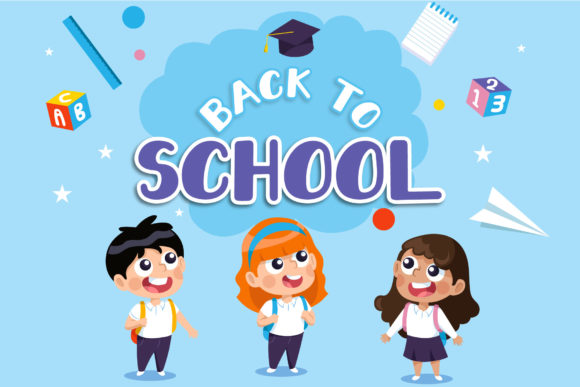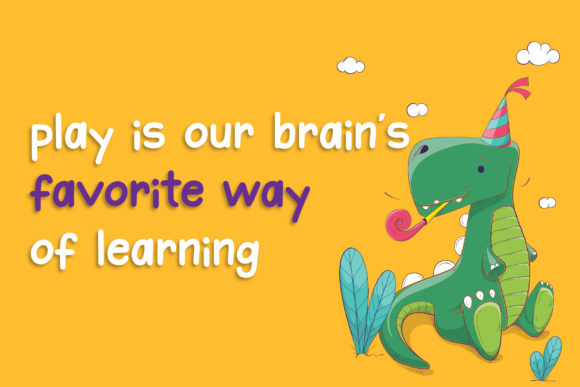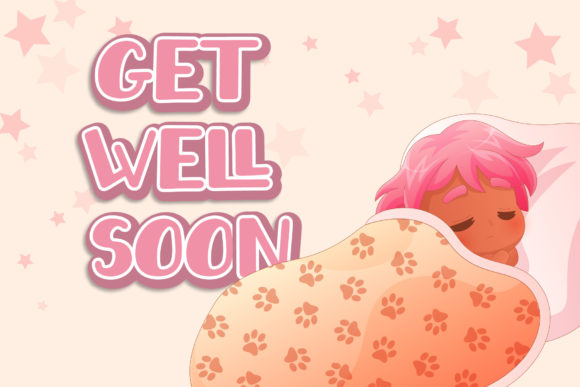
Introduction to Planet Monkey Font
Planet Monkey is a cute and quirky display font.
It will add an incredibly joyful touch to your designs Add this beautiful display font to each of your creative ideas and notice how it makes them stand out.
Planet Monkey Font offers exceptional quality and versatility, making it a valuable addition to your design toolkit. Whether you’re creating for personal projects or commercial use, Planet Monkey Font delivers professional results.